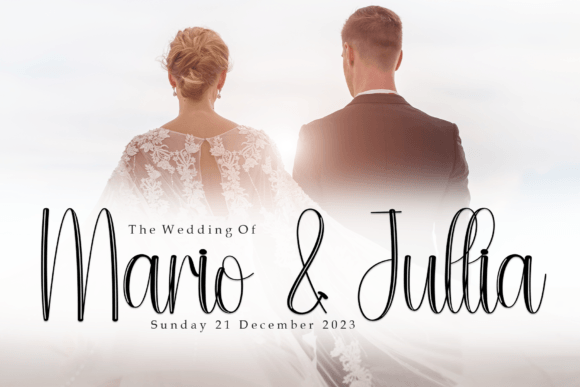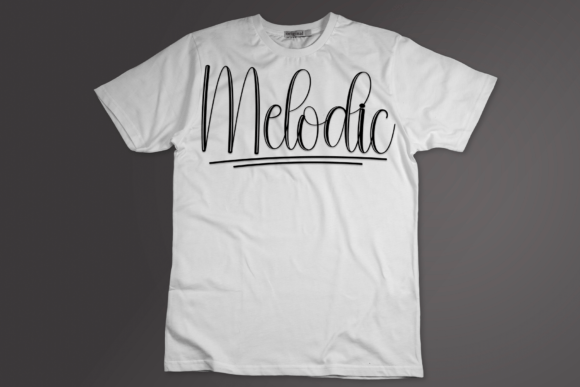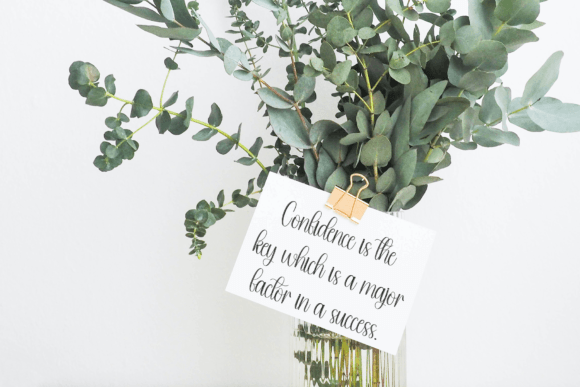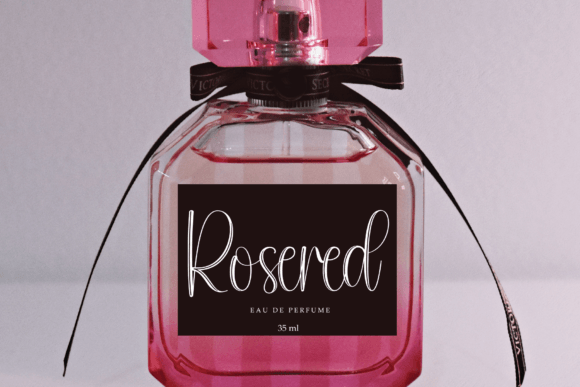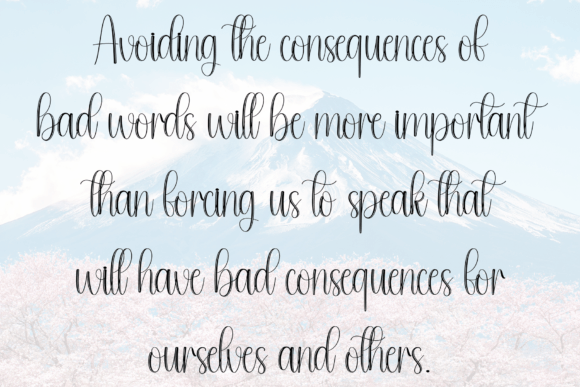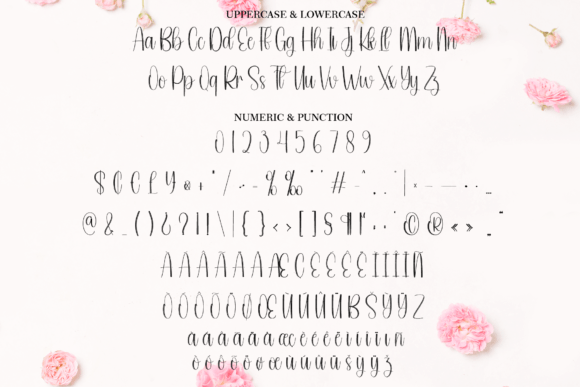
When Words Bloom into Beauty
As a designer, there’s something magical about watching a blank canvas transform into a vibrant masterpiece. It’s that moment when your creative vision takes shape, and you know you’re onto something special. Whether it’s a wedding invitation, a birthday card, or a social media post, the right font can make all the difference.
Enter Blooming Font, a sweet and friendly handwritten font that’s sure to bring a smile to your face. This adorable font is perfect for adding a touch of whimsy and romance to your designs, making it ideal for weddings, baby showers, and other special occasions. With its playful curves and gentle lines, Blooming Font is a valuable addition to any designer’s toolkit.
Blooming Font Key Features
- Font Family: Blooming Font is a unique, hand-drawn font family consisting of 6 different styles, each with its own characteristics and nuances.
- Unique Characteristics: The Blooming Font family features intricate, hand-drawn details and unique letterforms that give it a distinctive, artistic feel.
Blooming Font Review
I recently had the chance to dive into the Blooming Font, and I must say, it’s a delightful addition to any design project. Here are the highlights:
- ✨ Unique, hand-painted aesthetic that adds a touch of whimsy to any design
- ✨ Extremely versatile, suitable for a wide range of applications, from logos to packaging to editorial content
- ✨ Excellent legibility, making it perfect for body text and headlines alike
- ✨ Great font pairing options, allowing for endless creative possibilities
However, I did encounter a few limitations:
- ⚠️ Limited character set, which may be a concern for those who need to support multiple languages
- ⚠️ May not be suitable for small text sizes, as the intricate details can get lost at smaller scales
Overall, I’m impressed by the Blooming Font. Its unique charm and versatility make it a fantastic choice for designers looking to add a touch of personality to their work. While it may have some limitations, I believe the benefits far outweigh the drawbacks.
Blooming Font is ideal for creative and whimsical designs, such as:
- Children’s books and educational materials
- Decorative quotes and phrases